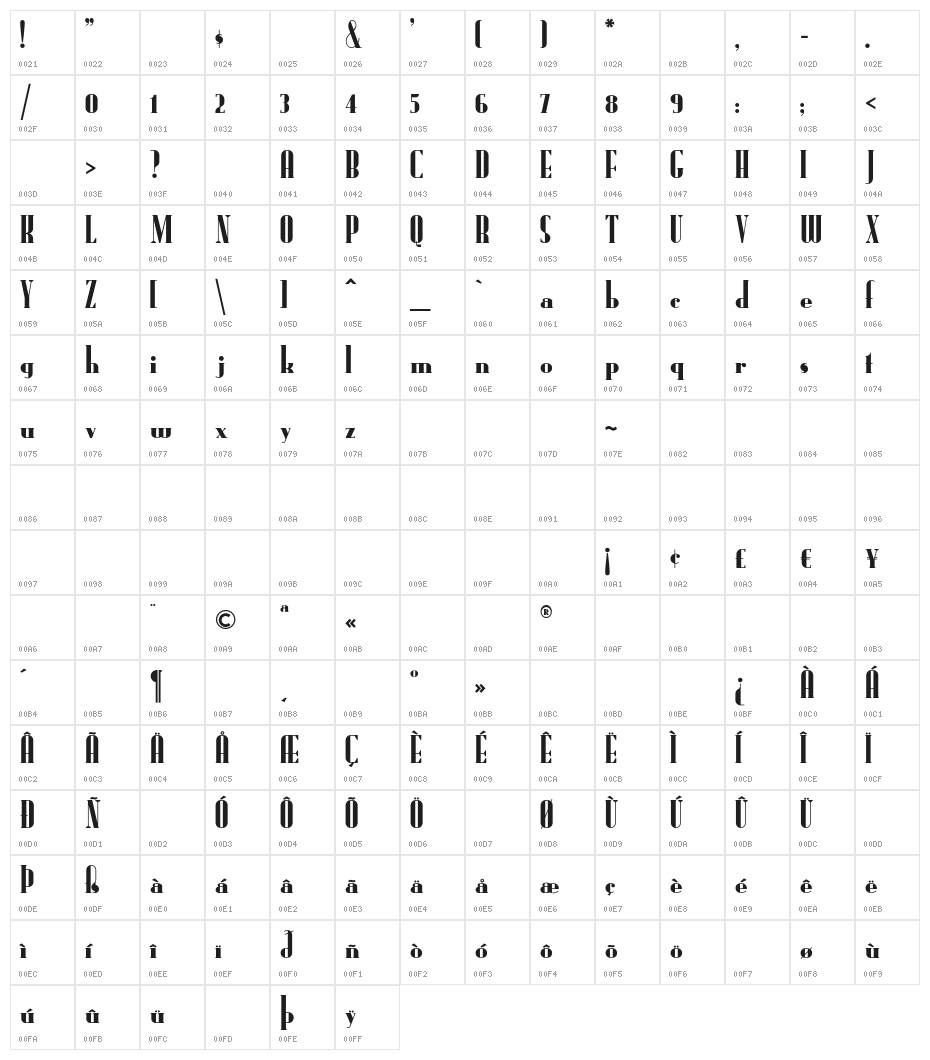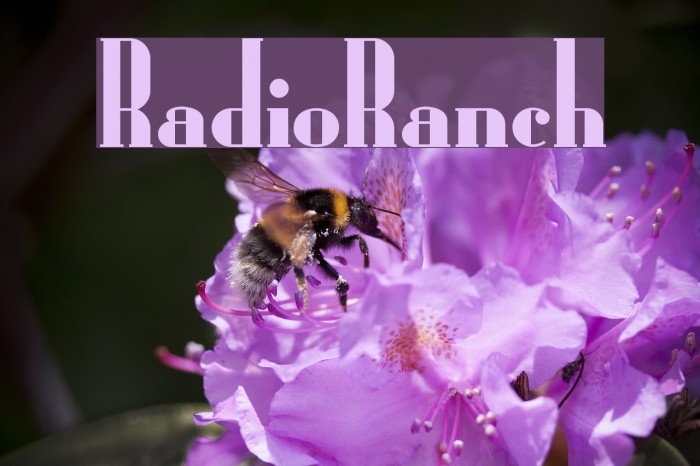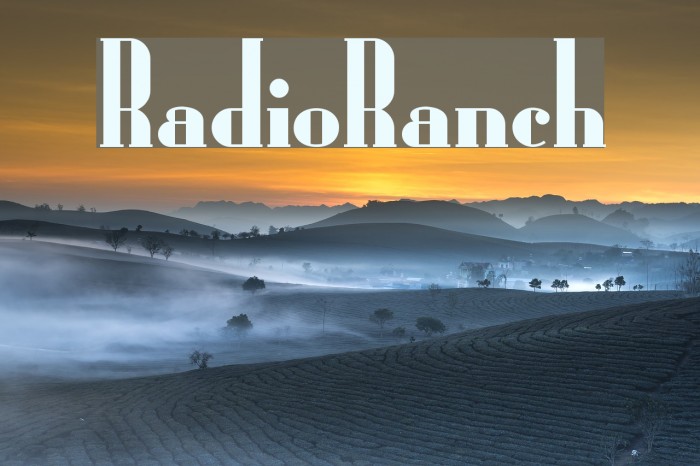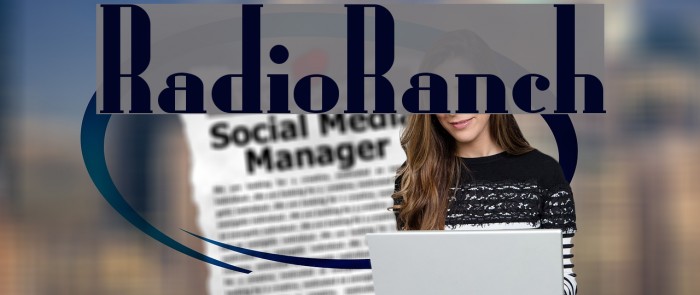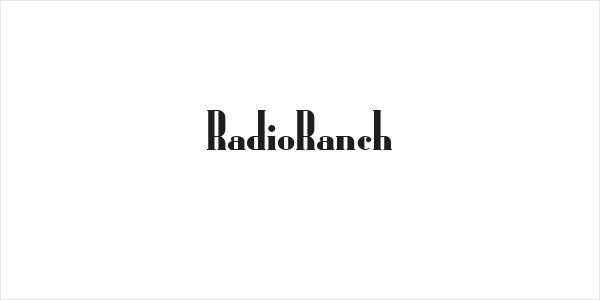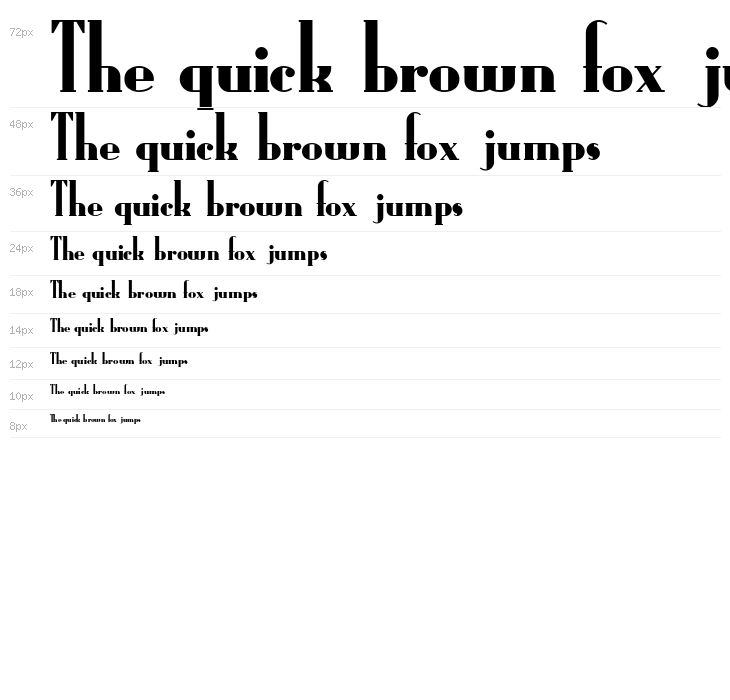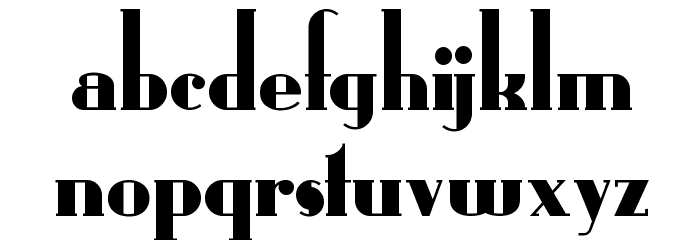
RadioRanch Font
RadioRanch Description
This font features a bold and striking design with high contrast between thick and thin strokes, giving it a dramatic and eye-catching appearance. The uppercase letters are tall and narrow, with sharp serifs that add a touch of elegance and sophistication. The lowercase letters maintain a consistent style, with rounded forms that balance the sharpness of the uppercase. The numerals are bold and clear, ensuring readability. Special characters are uniquely styled, adding to the font's decorative appeal. Overall, this font exudes a vintage charm while maintaining a modern edge, making it versatile for various design applications.
| Overall Style | Vintage, Modern |
| Proposed Projects | Ideal for branding, poster design, headlines, and any project requiring a bold, vintage-modern aesthetic. |